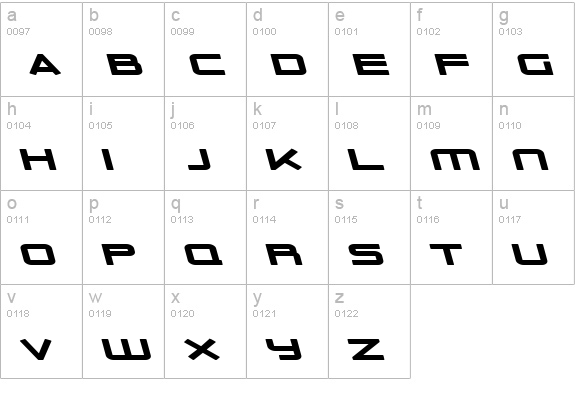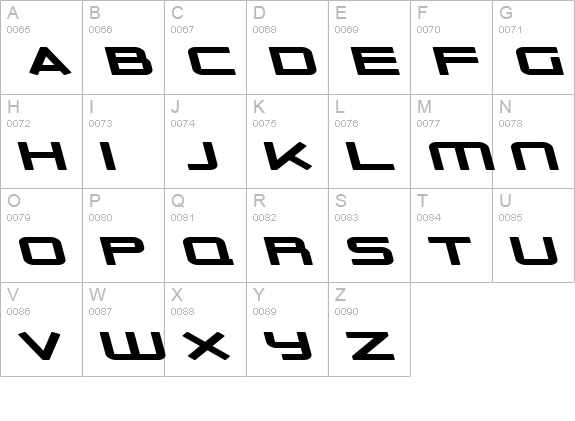
Outer Limits Solid Extended Italic is a distinctive, extended-width, italic variant in the Outer typeface family \xE2\x80\x94 well suited to design and typography projects.
Outer Limits Solid Extended Italic is a modern and edgy typeface that exudes a sense of futuristic sophistication. Its sleek design, with sharp angles and dynamic curves, creates a look that is both bold and distinctive. The extended italic style adds a touch of elegance and flair, making this font perfect for projects that require a contemporary and eye-catching aesthetic. What sets Outer Limits Solid Extended Italic apart is not just its striking appearance, but also its versatility. Whether you're designing a poster, logo, website, or any other creative project, this font will make a statement and elevate your design to the next level. The best part is that Outer Limits Solid Extended Italic is completely free to download at FontsMarket.com. This means you can start using this impressive font in your projects right away, without having to worry about any additional costs. Don't miss out on the opportunity to enhance your designs with this stunning typeface - download Outer Limits Solid Extended Italic today and let your creativity soar!